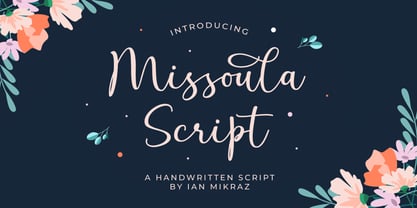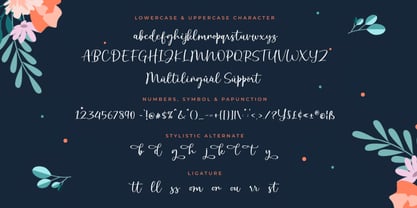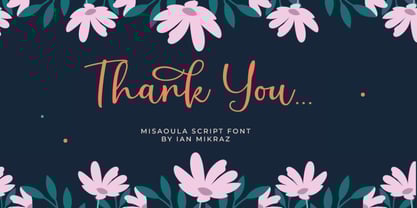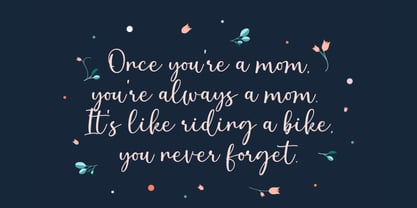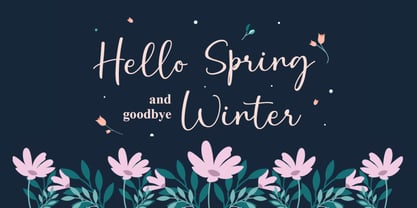
Missoula Script
The Missoula Script Font Family was designed by Ian Mikraz and published by IanMikraz Studio. Missoula Script contains 1 styles. More about this family
This script typeface effortlessly combines the fluidity of cursive handwriting with a touch of timeless sophistication.
Each stroke is carefully crafted to bring a sense of grace and uniqueness to your projects, making it the perfect choice for invitations, branding, and any design that demands a personal touch.
With its natural flow and distinctive characters, Missoula Script adds a touch of refinement to your creative endeavors. It's a versatile font that suits a range of applications, from wedding invitations to logo designs.
Bring a touch of handwritten artistry to your work with Missoula Script and let your projects resonate with a sense of individuality and style.